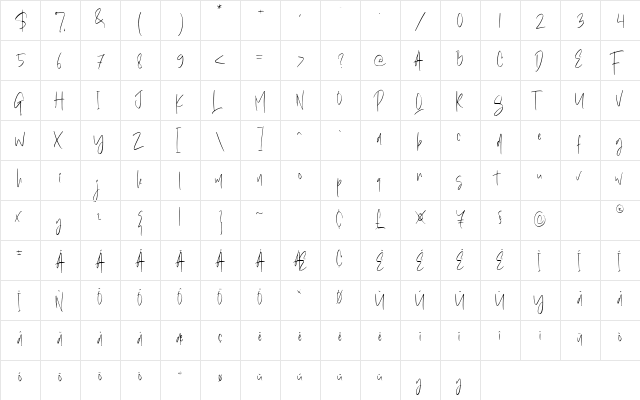
Arrival Of Companies Regular
| Designer | Ghazi Humam Fauzan |
Design Context for Arrival Of Companies Typeface
Arrival Of Companies is a composed and adaptable typeface that performs quietly and consistently across a wide range of design contexts.